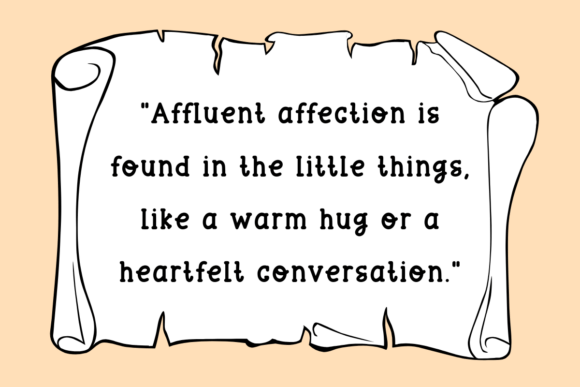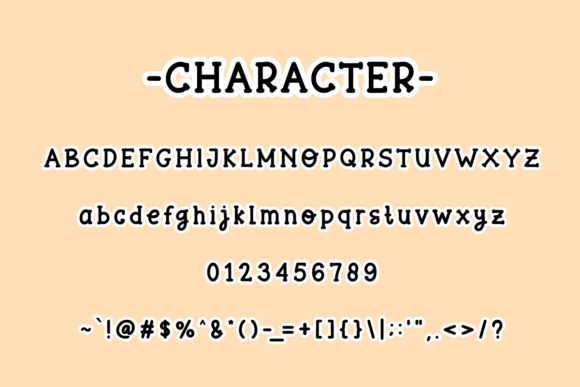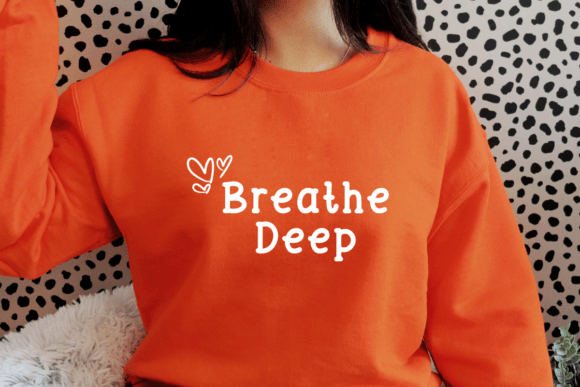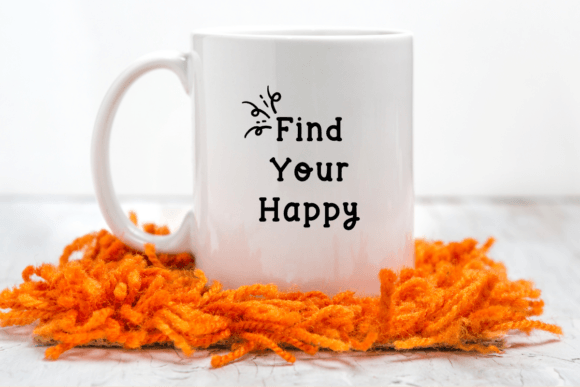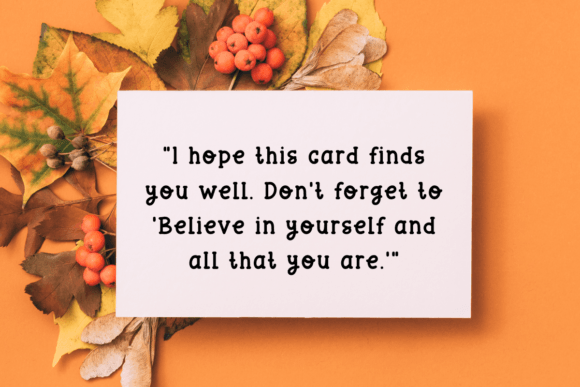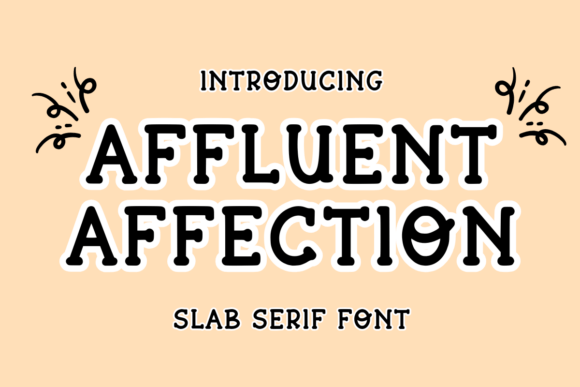
The Affluent Affection Font: A Designer’s New Best Friend
I’ll never forget the time I was working on a project for a client who wanted a playful, yet sophisticated font to match their brand’s personality. I spent hours scouring through font libraries, but nothing seemed quite right. That was until I stumbled upon the Affluent Affection font. It was love at first sight! 💕
As a designer, I’m always on the lookout for fonts that can help me bring a project to life. And let me tell you, Affluent Affection does just that. This fun, cute handwritten sans serif font has quickly become my go-to for a variety of design tasks, from crafts and digital design to presentations and greeting cards.
- ✨ The playful, hand-drawn feel that adds a personal touch to any design
- ✅ The versatility – it works well for both digital and print projects
- 💬 The font’s friendly, approachable vibe that’s perfect for designs that need a bit of personality
- 🎨 The range of OpenType features, glyphs, and stylistic alternates that allow for endless creativity
While Affluent Affection is an amazing font, there are a few things to keep in mind:
- 🤔 Some of the more intricate glyphs and alternates can be a bit finicky to access, depending on the software you’re using
- ⚠️ The font may not be the best choice for very formal or corporate designs, as it has a distinctly playful feel
The Story Behind Affluent Affection
Affluent Affection was designed with the intention of creating a font that was both playful and sophisticated. The designer wanted to craft a font that would be perfect for a variety of design tasks, from digital projects to handmade crafts. With its unique blend of hand-drawn charm and sans serif simplicity, Affluent Affection has quickly become a favorite among designers and crafters alike.
Q: Is Affluent Affection suitable for body text?
A: While Affluent Affection is a beautiful font, it’s best suited for headlines and short blocks of text. For longer body text, you may want to choose a font with better readability.